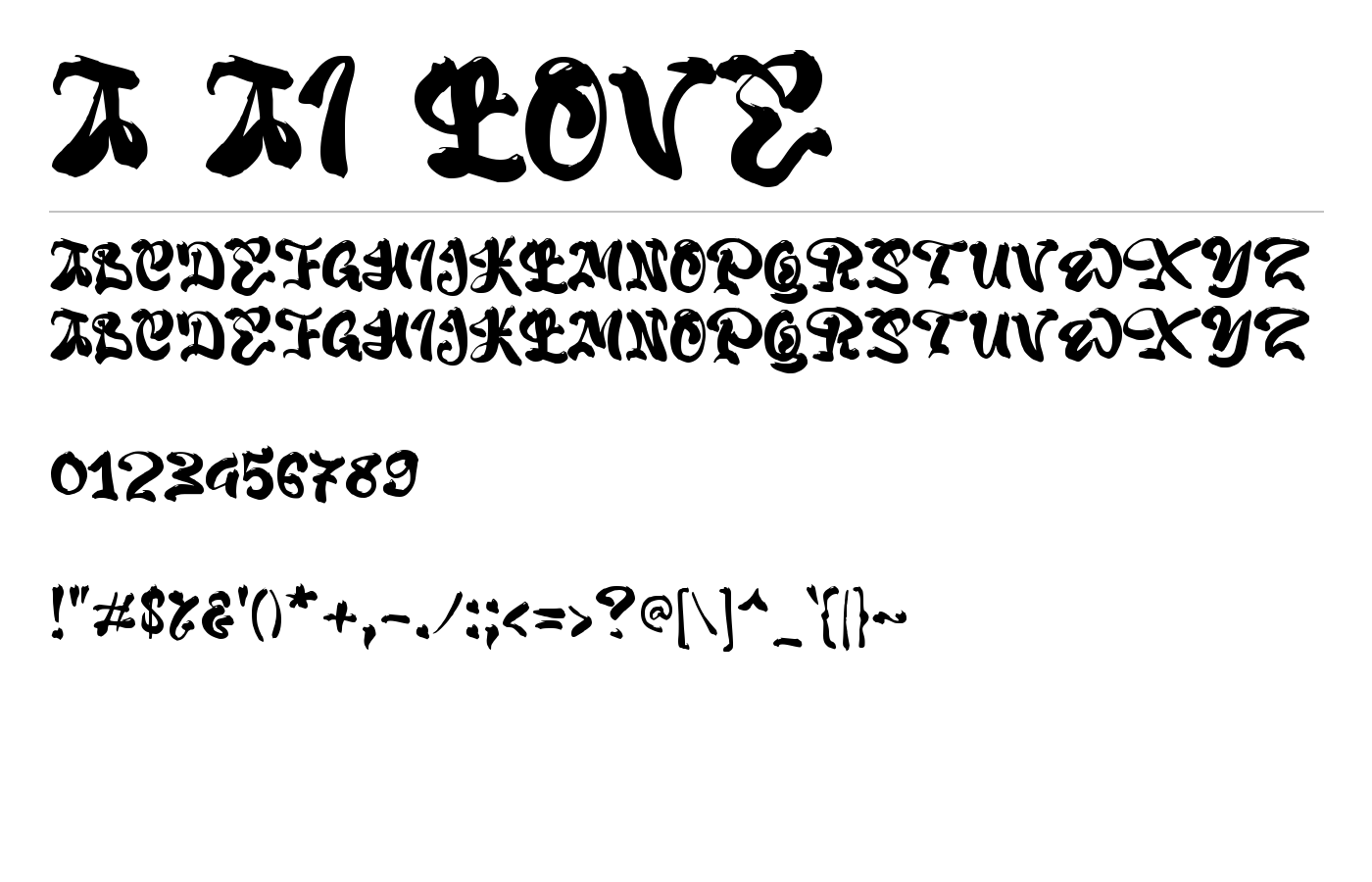
Ai Love Font is a bold, artistic serif typeface with an expressive and slightly irregular style that gives it a hand-crafted, almost gothic feel. Its heavy weight, strong contrast, and distinctive letter shapes create a dramatic and vintage atmosphere, making it ideal for eye-catching headlines, logos, or creative projects needing a unique, intense personality. This font stands out best in designs where boldness and individuality are key, such as posters, branding, or decorative text.
a Ai Love Font